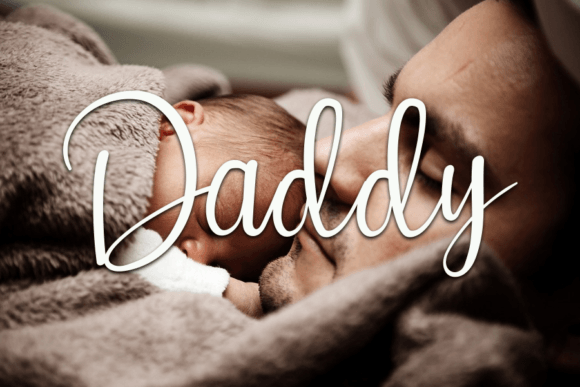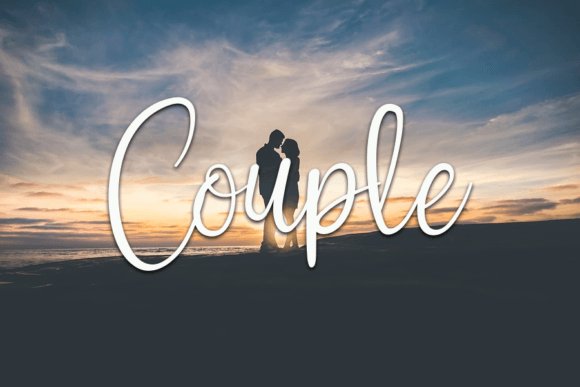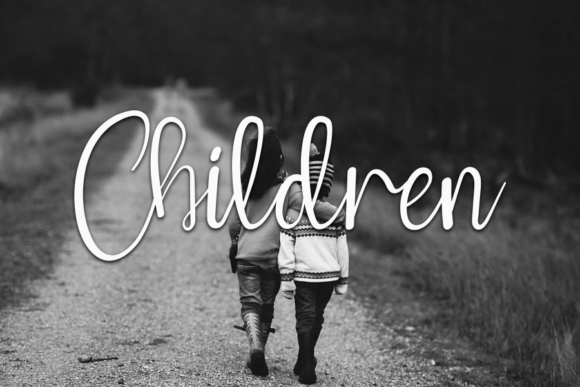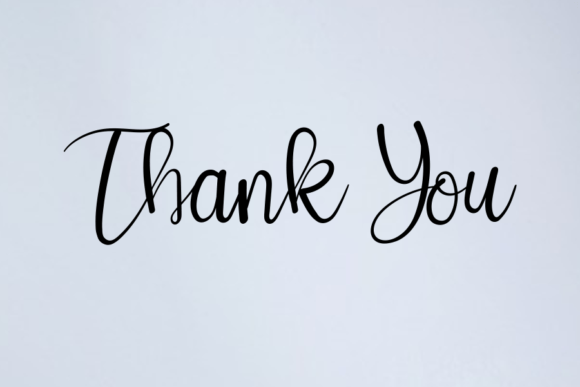
Introduction to Love Lone Font
As a designer, have you ever been stuck in a creative rut, searching for the perfect font to elevate your project? You know, that moment when you’re pouring your heart and soul into a design, and all it needs is that one special touch to make it truly stand out. For me, that moment came when I stumbled upon the Love Lone Font. Its friendly, handwritten feel instantly captured my attention, and I knew I had to share it with the world.
Key Features of Love Lone Font
- Unique, hand-drawn design with a transparent background, ideal for adding a personal touch to any project.
- Perfect for designers, artists, and creatives working on projects that require a touch of elegance and sophistication.
- Love Lone Font is a versatile design resource that can be used in a variety of contexts, from branding and advertising to digital art and craft projects.
Honest Review: Love Lone Font
I recently stumbled upon the Love Lone Font while searching for high-quality fonts for a creative project. After giving it a try, I’d like to share my honest review.
What works well: ✨ The font has a unique, elegant design that instantly caught my attention. The high-quality graphics and transparent background make it perfect for various design applications, from logos to typography-based projects.
- Includes a comprehensive character set with uppercase and lowercase letters
However, there are some limitations: ⚠️ The font library is relatively small, and it may not be suitable for complex or detailed designs. Additionally, some users may find the font’s unique design style to be too minimalist or unconventional.
Overall, I’m impressed with the Love Lone Font’s high-quality design and versatility. While it may not be perfect for every project, it’s a valuable addition to any designer’s resource library. If you’re looking for a unique and elegant font for your next creative project, give the Love Lone Font a try.
Love Lone Font is a high-quality design resource that can be used in various creative projects. Its unique style and transparent background make it perfect for designing logos, posters, and other visual materials.
Love Lone Font is commonly used in branding, advertising, and creative projects that require a unique and stylish design. It’s perfect for designing logos, business cards, and other promotional materials.